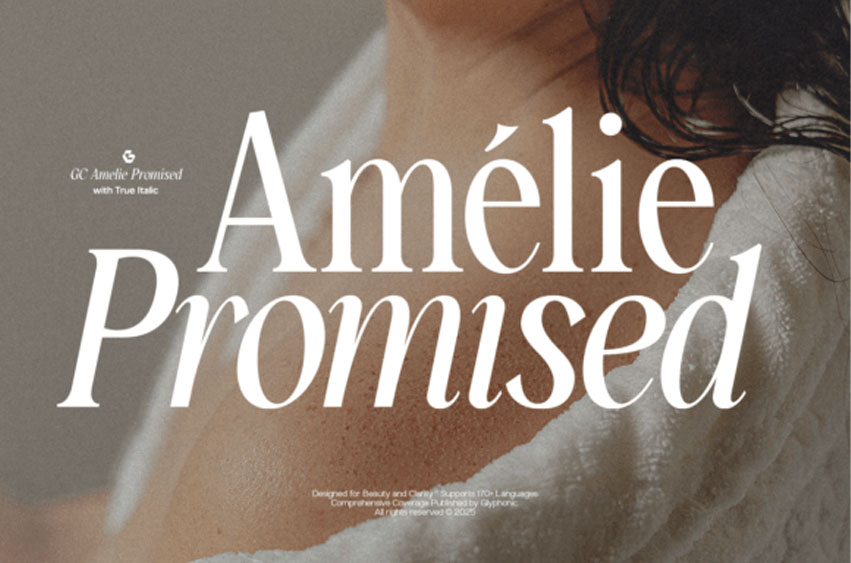
Amelie Promised Font is a high-contrast serif typeface designed for ultimate beauty and clarity, embodying timeless elegance with a luxurious, modern twist.
This font features dramatically thin serifs and thick vertical strokes, creating a striking visual rhythm perfect for high-end branding. It includes a beautiful True Italic style, offering sophisticated swashes and a breathtaking flow for logotypes and headers, alongside extensive multilingual glyph support for over 170 languages.
Ideal for luxury magazine titles, cosmetic packaging, wedding invitations, fashion labels, and any project that requires opulent, sophisticated, and flawlessly crafted typography.